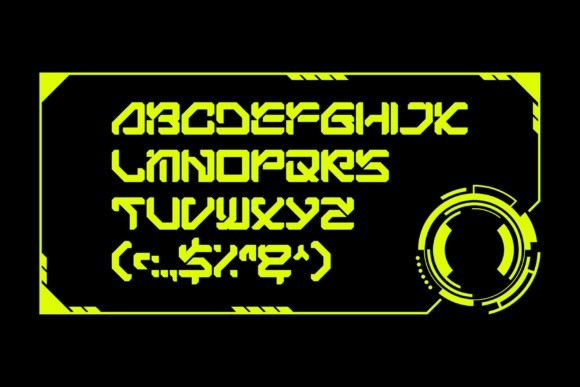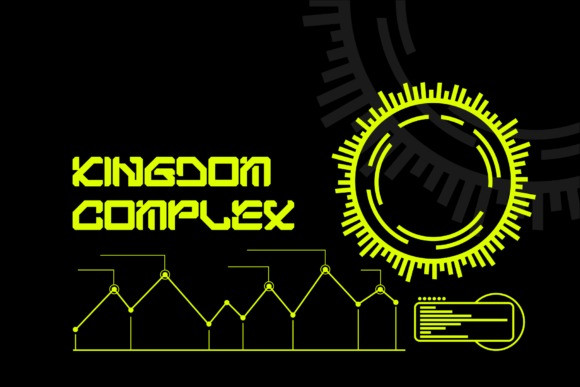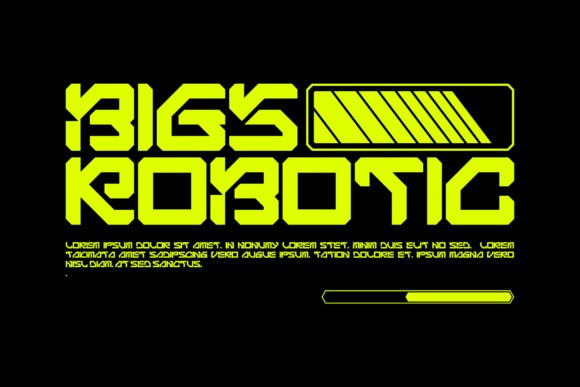
Bigs Robotic Font
Bigs Robotic Display Font is a futuristic and robotic-styled display font. It features geometric shapes, straight lines, and zigzags for an overall modern and very cool appearance!